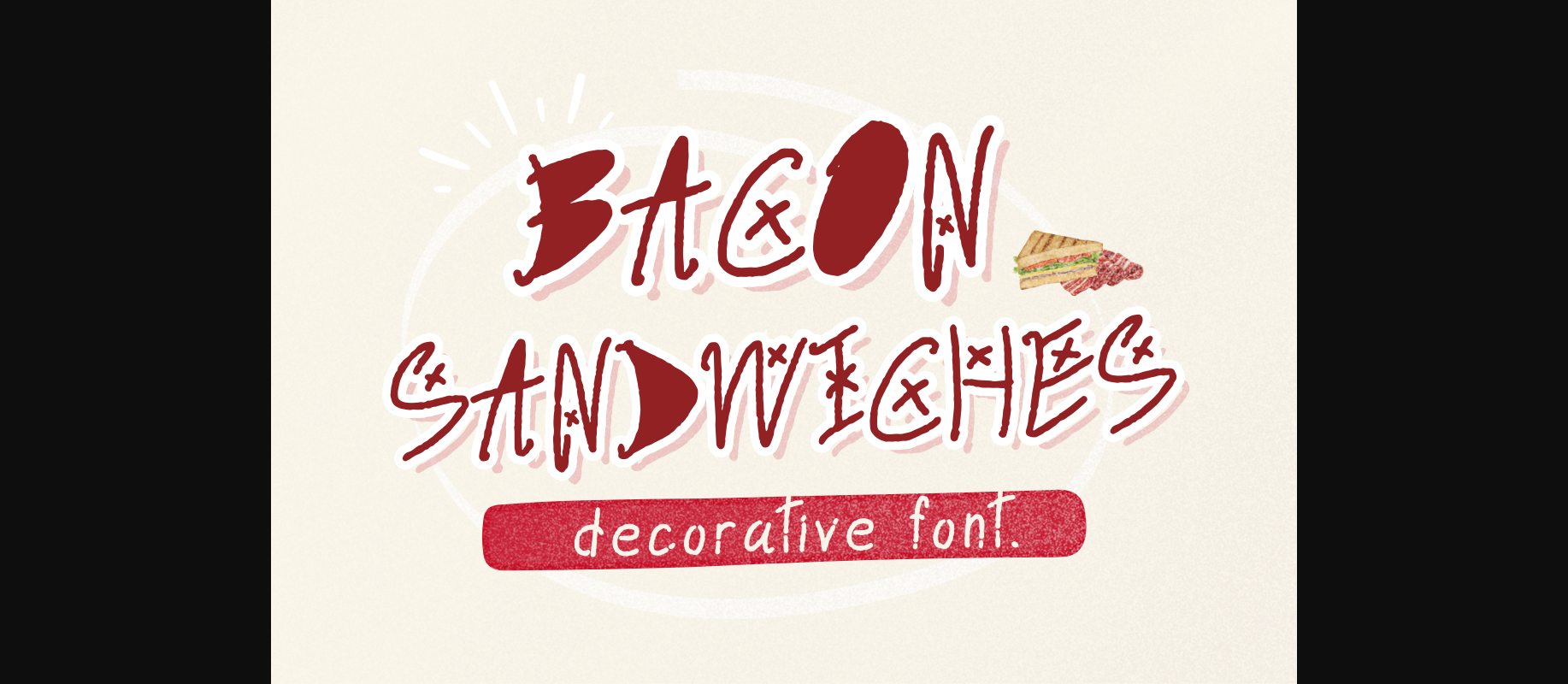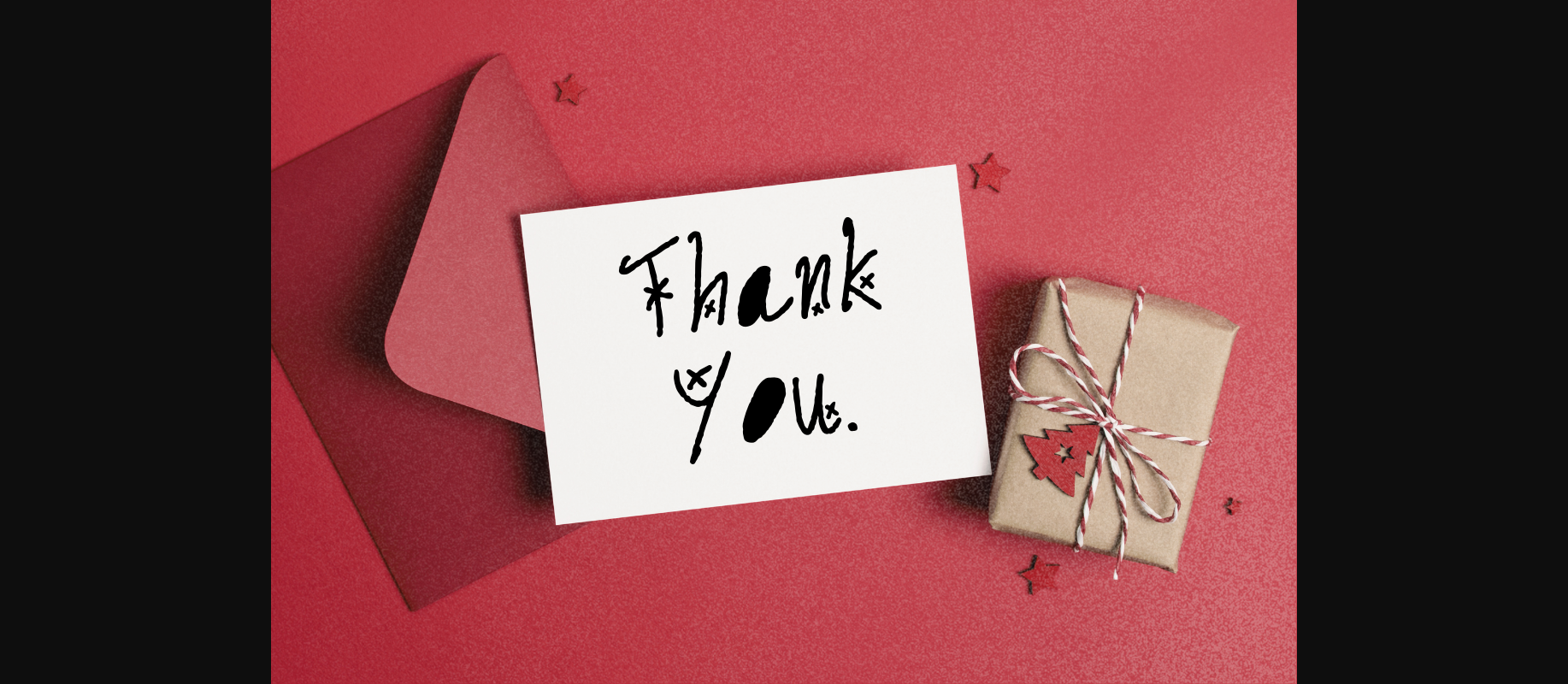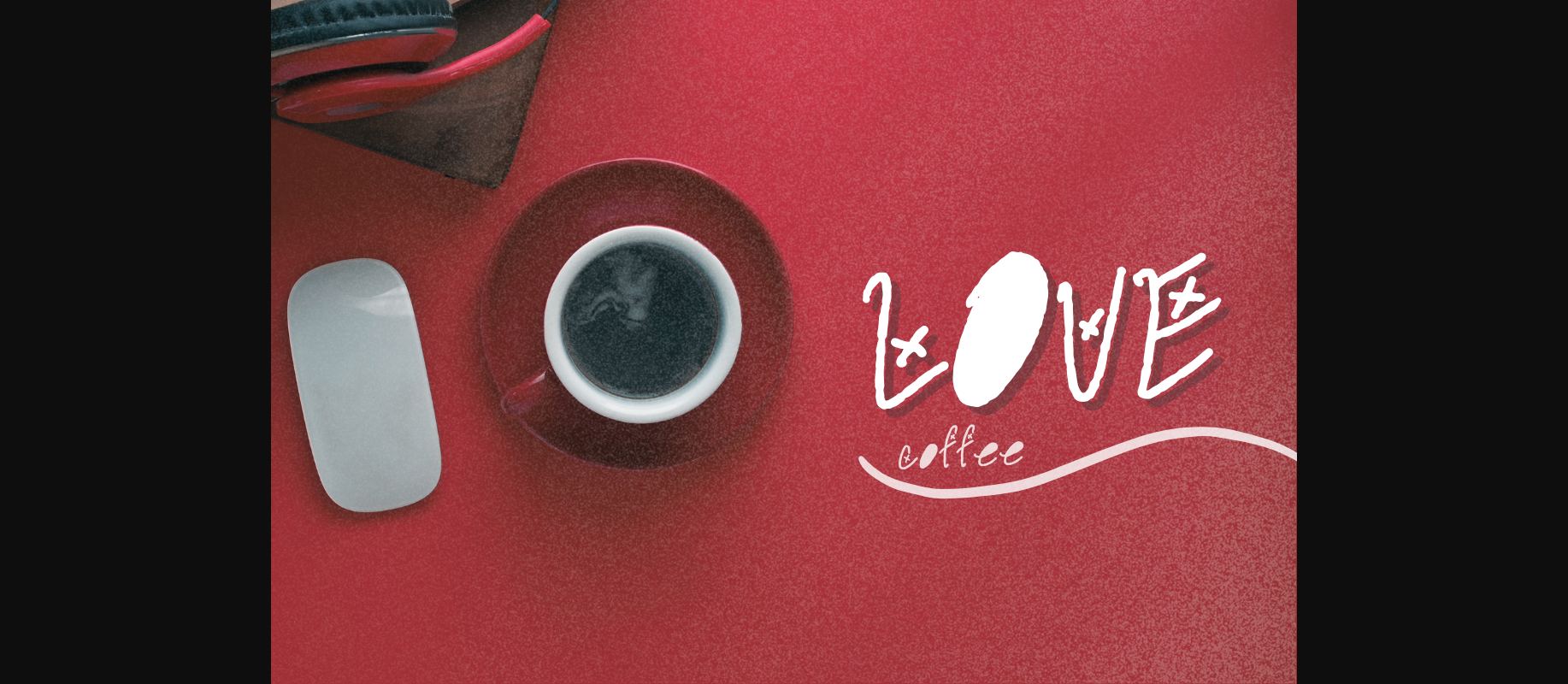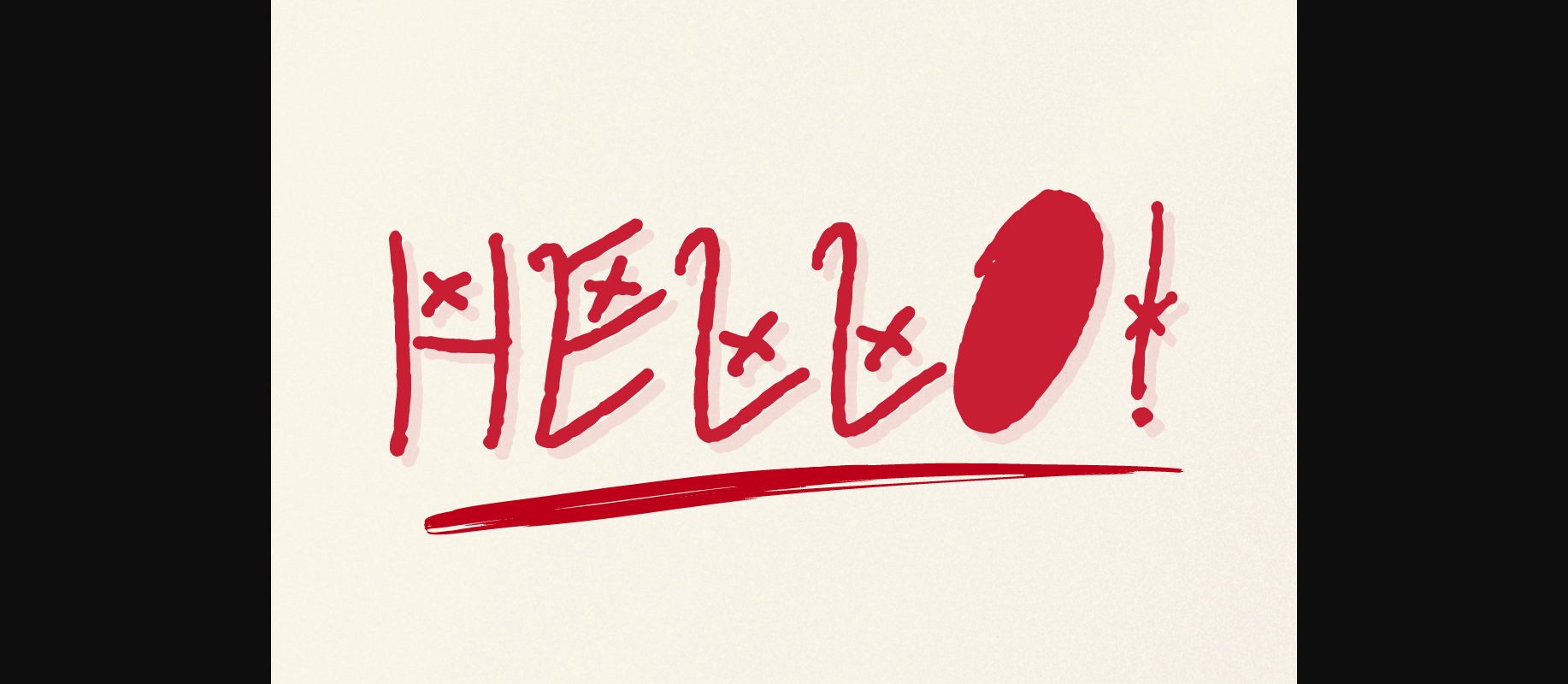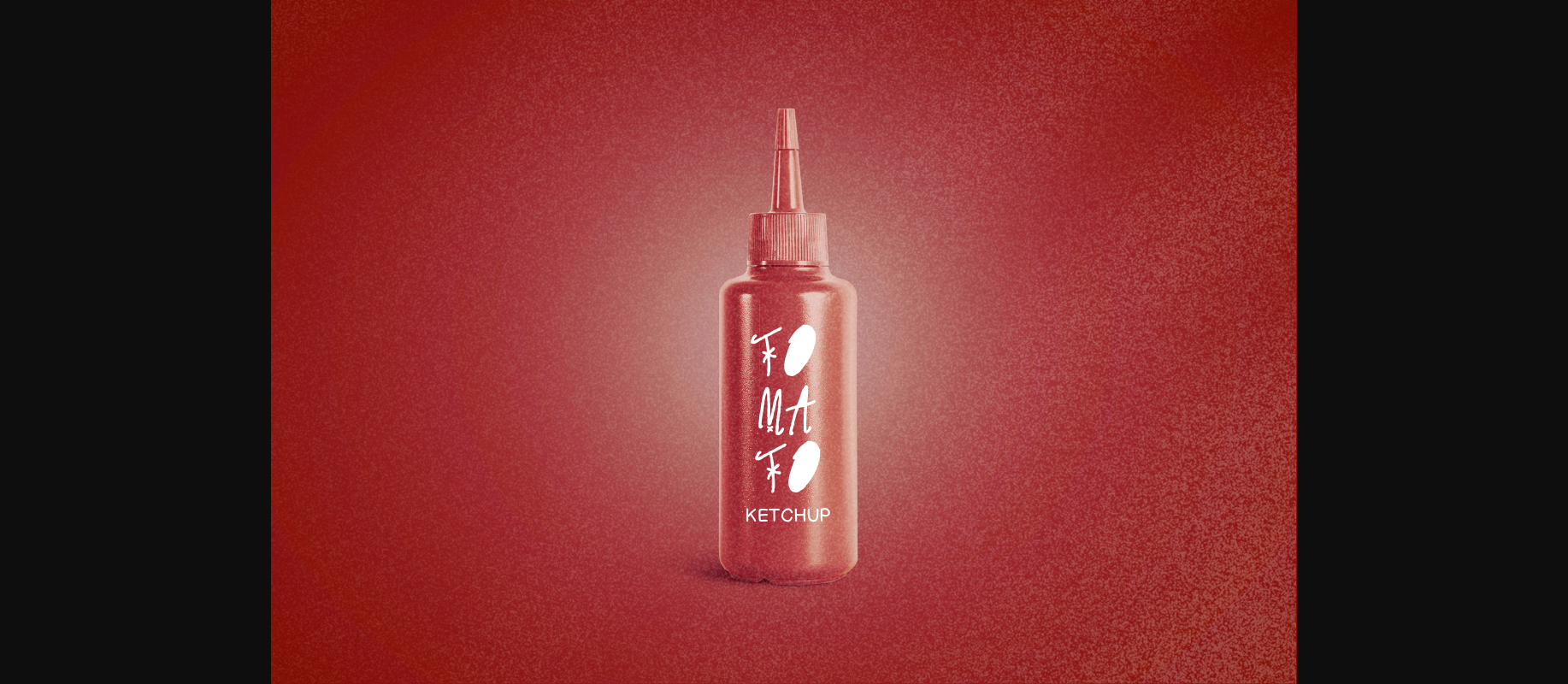
About Bacon Sandwiches Font
Bacon Sandwiches is a simple and cute decorative font that can be used to create a variety of works. Versatile,it can be used in a variety of applications from crafts for kids, teachers, to greeting cards.